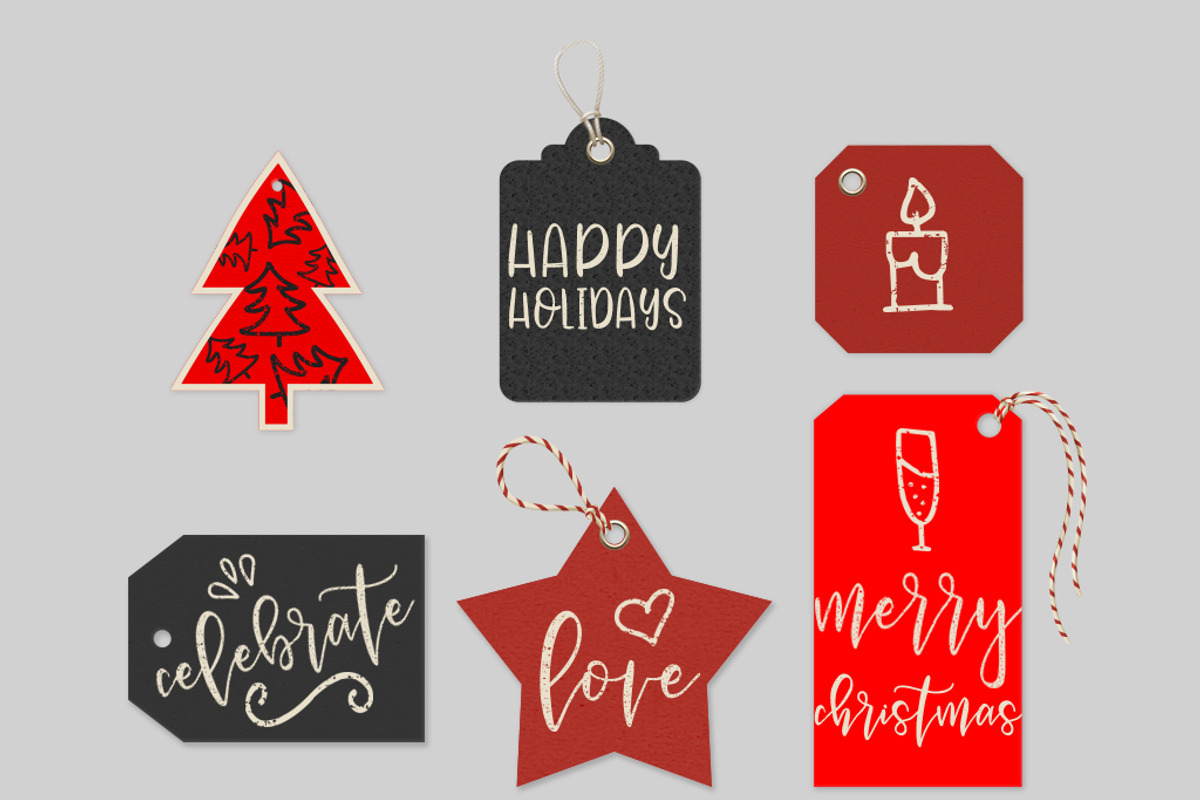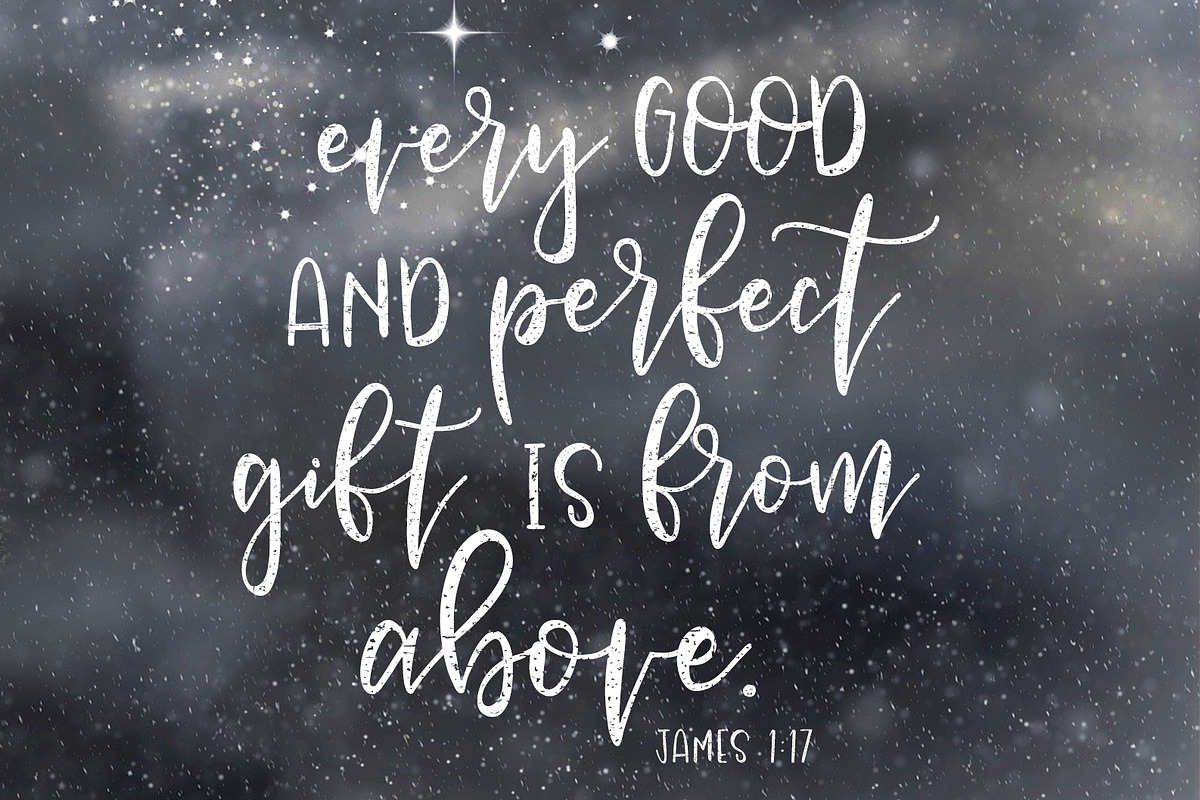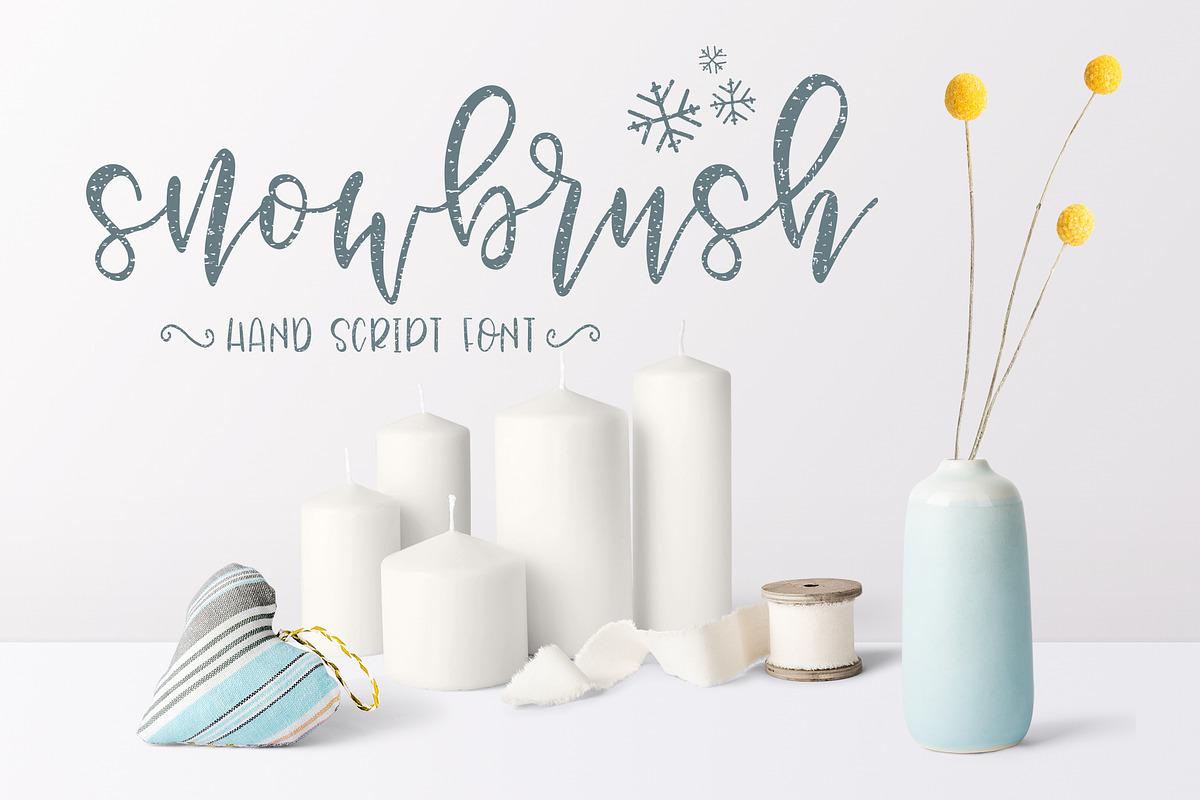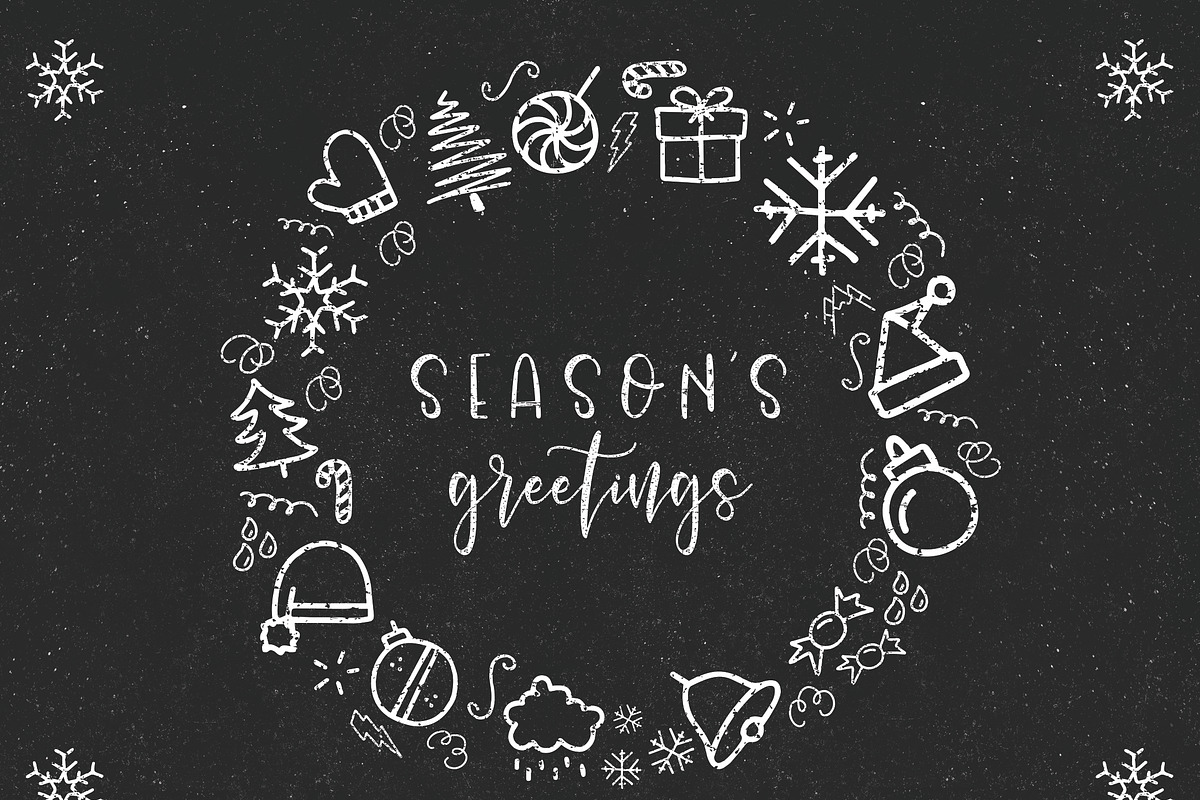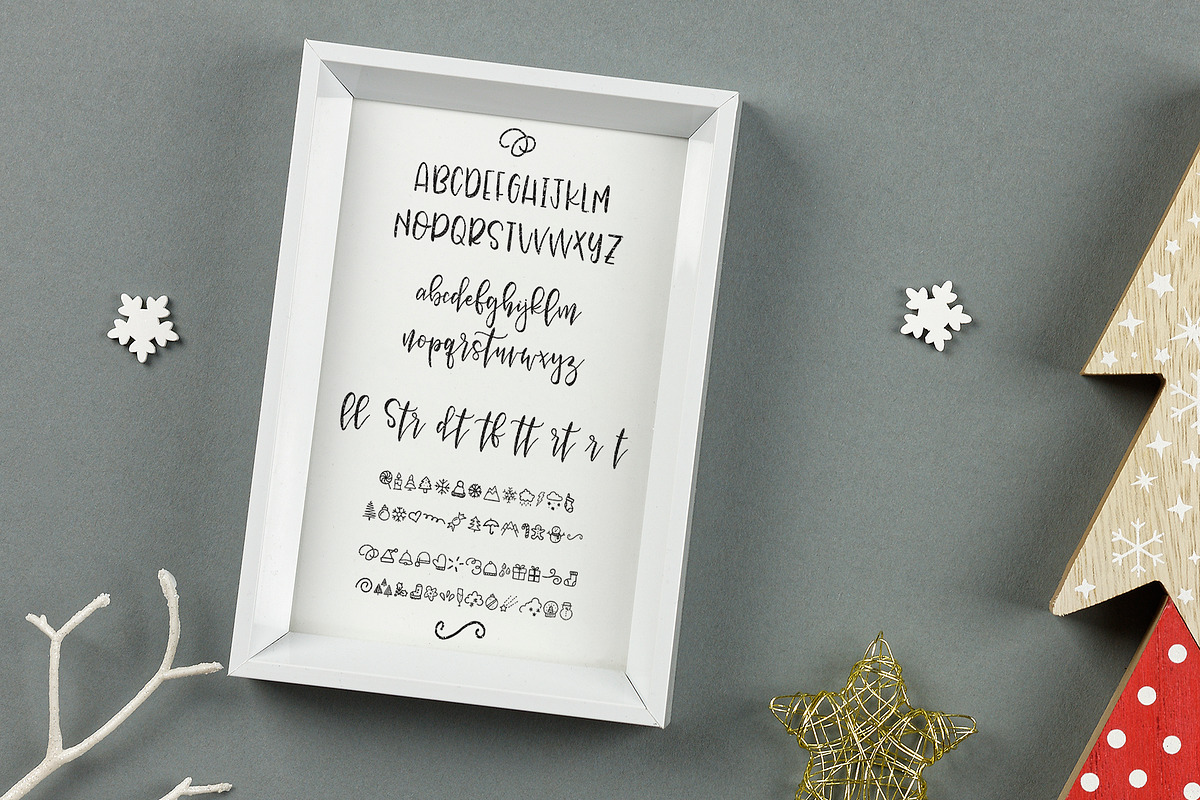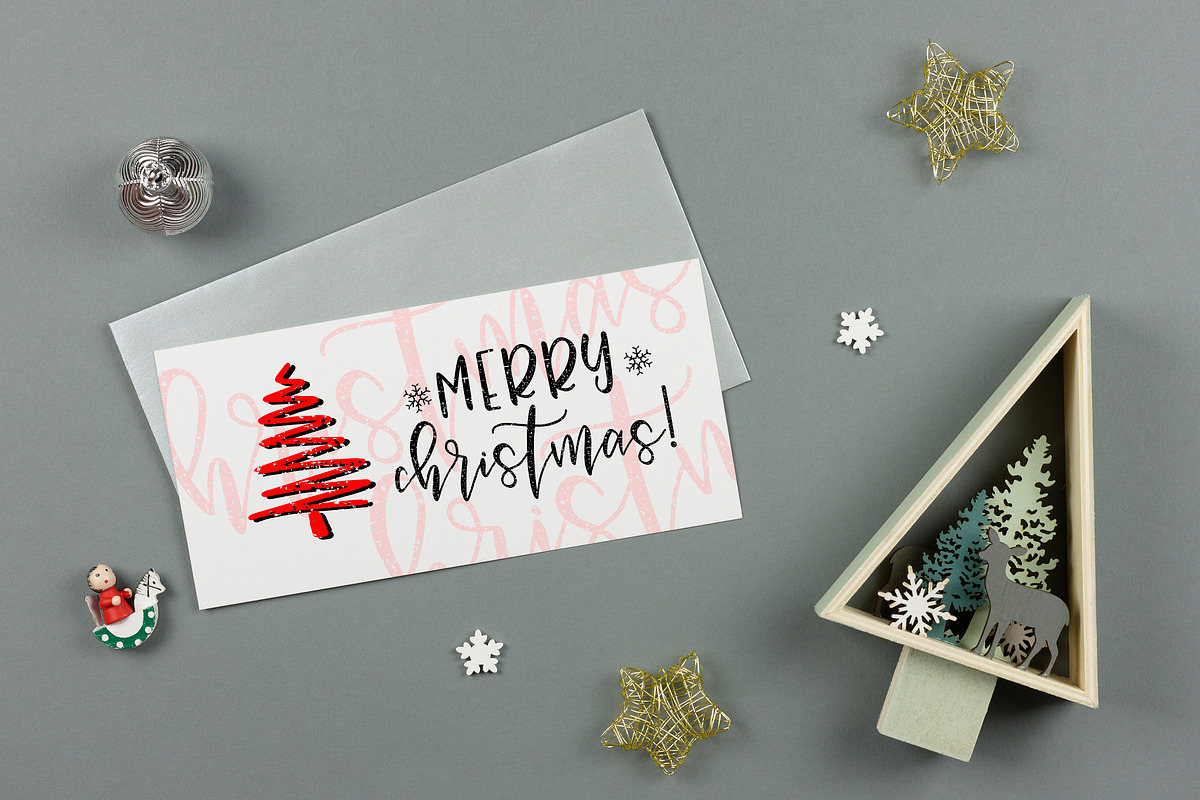
Snowbrush Script Font
SNOWBRUSH SCRIPT FONT is completely hand made font with a brush pen, with each letter having a unique snowflake effect that give it an FRESH and NATURAL touch.
It has a bouncy style which makes it more dynamic, full of personality and crafted look. Perfect to use for natural backgrounds, because it has a original texture that makes it blend in as if it where part of a whole.
Use it for headings, t-shirts, letterheads, labels, news, badges, invitations, personal cards, posters or product logos and names, Snowbrush font contains a number of ligatures and characters that will make your text unique.
Plus, Snowbrush Script font comes with a separate set of Snowbrush Symbols Font which also have the same snowflake effect as the script font, and can be combined to make cool and fancy designs.
Snowbrush Script comes with multilingual support with accented characters for international (Western European, Central European and South Eastern European) users.